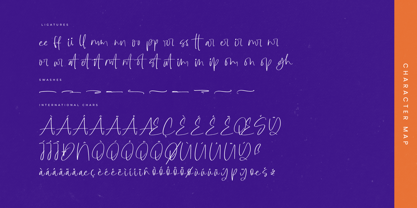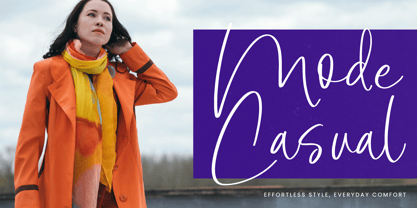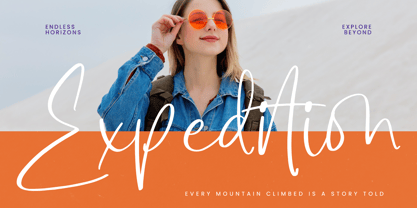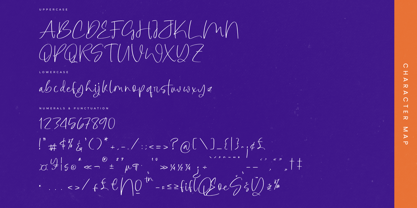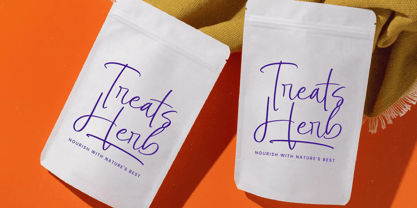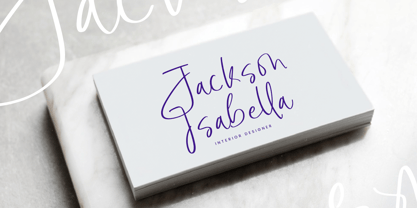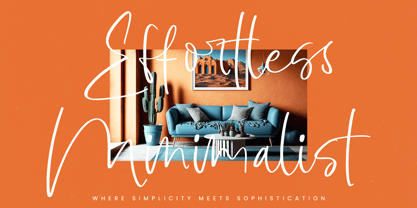
Botany Centers
by Letterena Studios
Botany Centers – Modern Handwritten Font , from Letterena, is a Luxury Script font, suitable for any projects such as: logos, branding projects, homeware designs, product packaging, mugs, quotes, posters, shopping bags, t-shirts, book covers, name card, invitation cards, greeting cards, label, photography, watermark, special events, and all your other luxury and beautiful projects that need a Luxury Script taste.